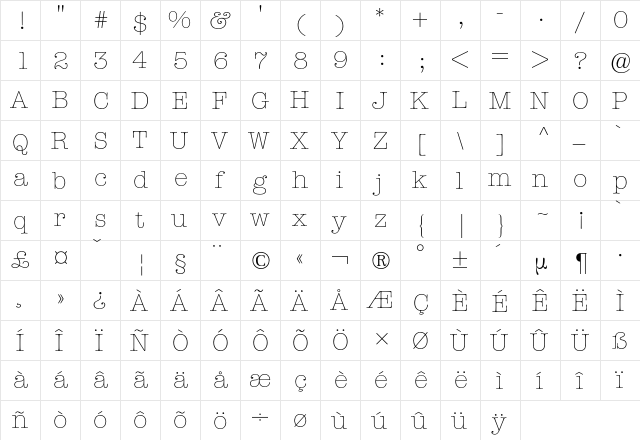
AmericanTypewriterBQ Light
Design Context for AmericanTypewriterBQ Typeface
AmericanTypewriterBQ brings the precise, column-aligned rhythm of monospaced typography to designs that value technical clarity and systematic order. Its slender proportions lend an understated elegance to any composition.
Pro Tip: Pair AmericanTypewriterBQ with a proportional sans for UI contexts where code-style labels and regular body copy need to coexist.